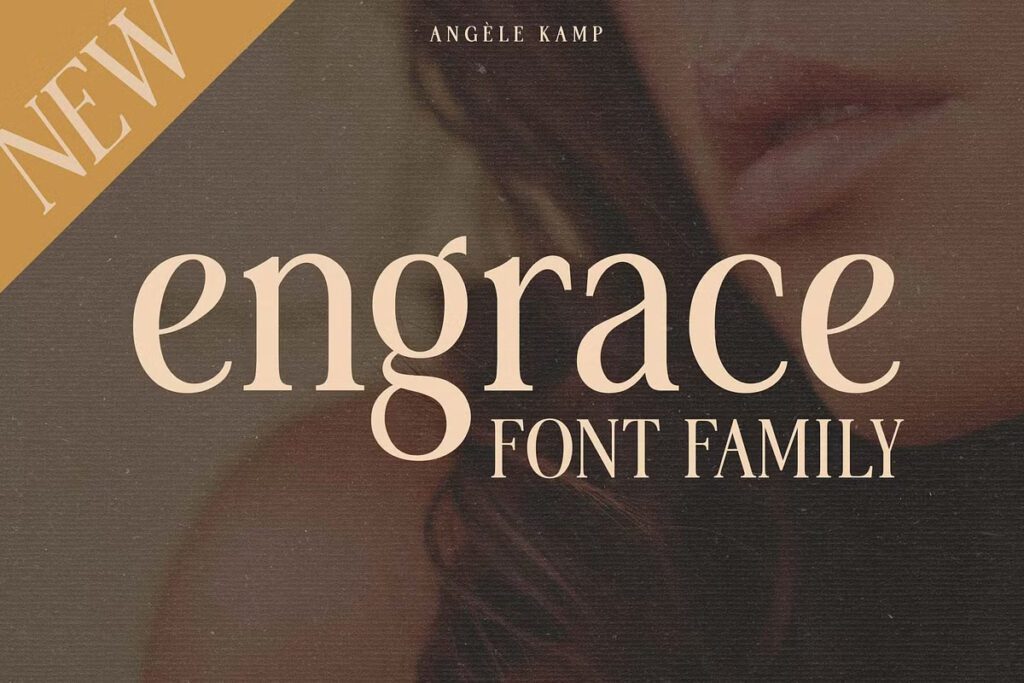
Introducing Engrace: The Elegant Serif Font Family for Luxurious Designs
If you’re searching for a versatile and stylish serif font family, look no further than Engrace. Designed with elegant curves and a modern aesthetic, Engrace blends romance and class, making it the perfect choice for projects that demand sophistication.
Why Choose Engrace Serif Font Family?
1. Elegant and Stylish DesignEngrace embodies luxury and high fashion with its beautifully crafted curves and modern serif styling. It adds a touch of sophistication to any design, from branding and editorial to social media graphics and wedding invitations.
2. 8 Font Variations in One FamilyThis font family offers 8 variations, including four different weights (Light to Bold) in both Regular and Italic styles. Whether you need a delicate touch or a bold statement, Engrace has a version that fits your creative needs.
4. Variable Font FlexibilityAs a variable font family, Engrace gives you more control over your designs. You can tweak its weights and styles dynamically, offering greater flexibility to fine-tune your typography based on the specific needs of your project.
5. Designed by Angele Kamp Created by the talented Angele Kamp, Engrace reflects her signature style—feminine, elegant, and inspired by nature. Her artistic touch is evident in each curve and detail, making Engrace a standout choice for anyone looking to add beauty and grace to their typography.
Ideal Uses for Engrace Font Family
Luxury Branding
Editorial and Magazine Layouts
Wedding Invitations
High Fashion and Beauty Designs
Social Media Graphics
Engrace is the perfect combination of elegance, style, and versatility. Its sleek design, multiple weights, and italic options make it a go-to choice for luxury projects. Whether you’re designing for high-end fashion, wedding events, or sophisticated editorial pieces, Engrace offers the flexibility and beauty needed to make your work stand out.